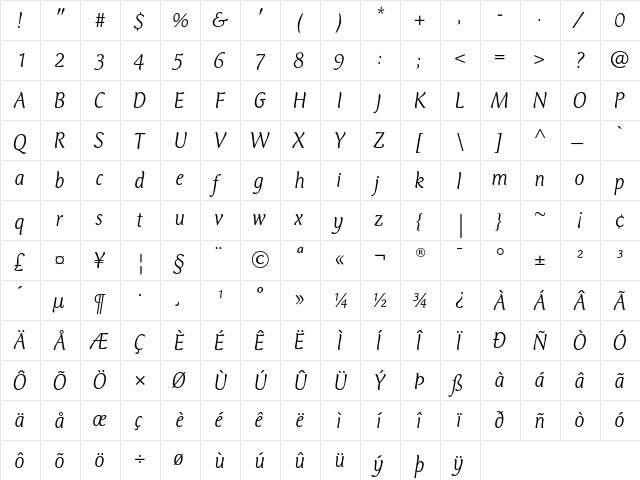
Club Type Mercurius Light Italic Font Preview
Design Context for Club Type Mercurius Typeface
Club Type Mercurius takes a measured approach to typography — its balanced proportions and neutral character make it a reliable workhorse for both digital and print work. The dynamic lean of this cut emphasises speed and emphasis in any layout. The delicate stroke weight brings airiness and refinement to layouts.
Pro Tip: Use Club Type Mercurius for emphasis, pull quotes, and subheadings where its slanted energy can add rhythm to the layout.